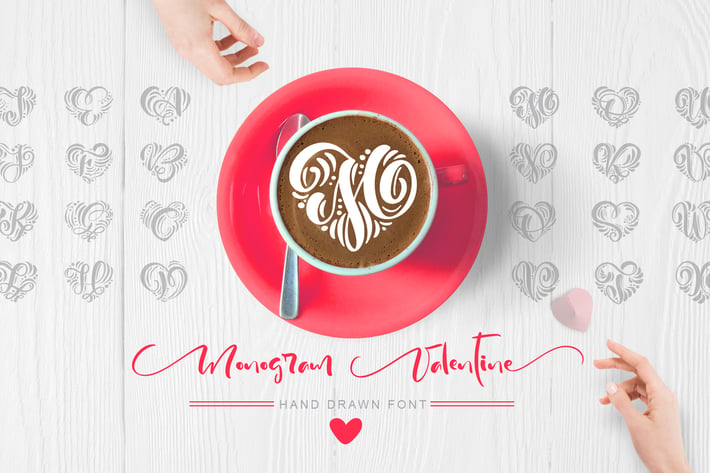
Monogram Valentine Font
Monogram Valentine Font includes unique flourishes swirl letters in form of heart that give romantic and love feeling for wedding holiday greeting cards, logo, invitations, etc. Elegant calligraphic lines give freshness to your handmade design.
In this font CAPITAL and lowercase letters are same. Therefore, you can use capital or lowercase letters.
2. This font is not for writing words or sentences, but for monograms. For example AH.
4. This font is WITHOUT numbers and punctuation.